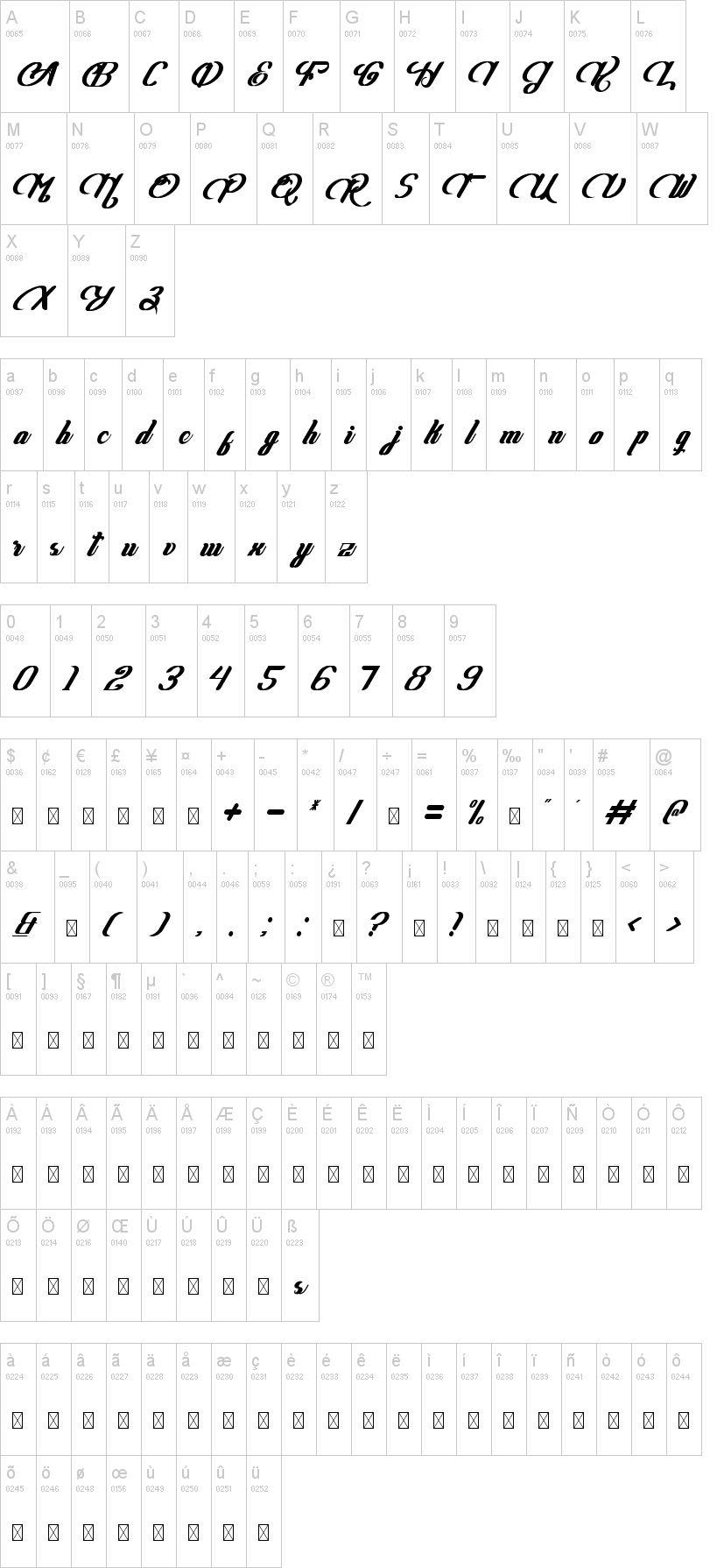
Note of the authorGhea Adasta Script Inspired by Lifestyle with trend typography. I combine with my Hand Lettering style. made with personal touch every single curve. I hope this can make inspire you from your work. and a very bouncy baseline It has a perfectly paired complimentary marker font, and a super handy set of bonus Swash. Ideal for logos, handwritten quotes, product packaging, header, poster, merchandise, social media & greeting cards.